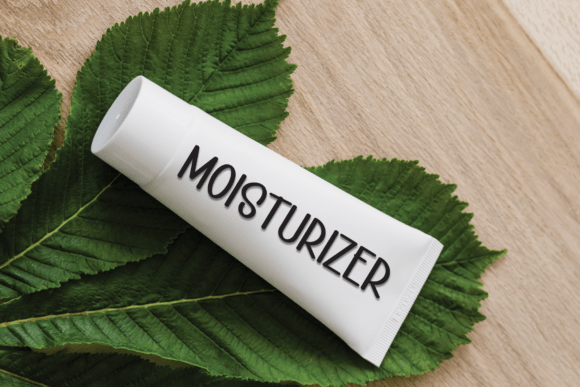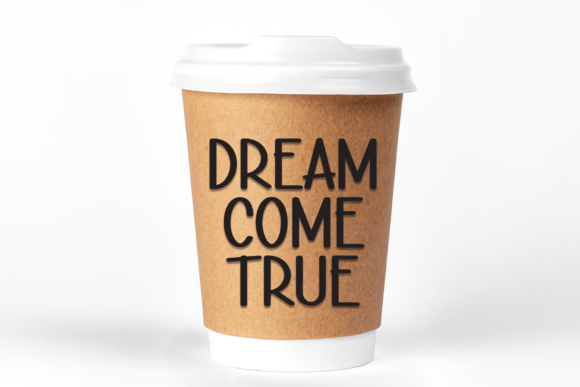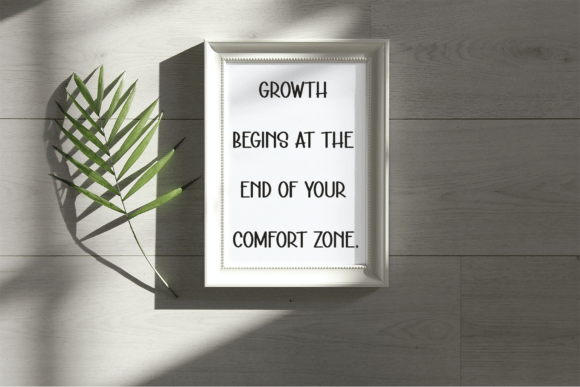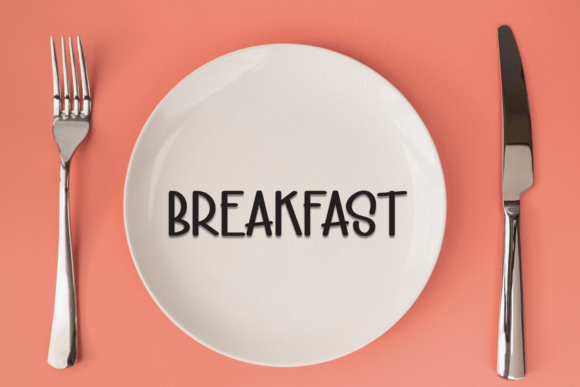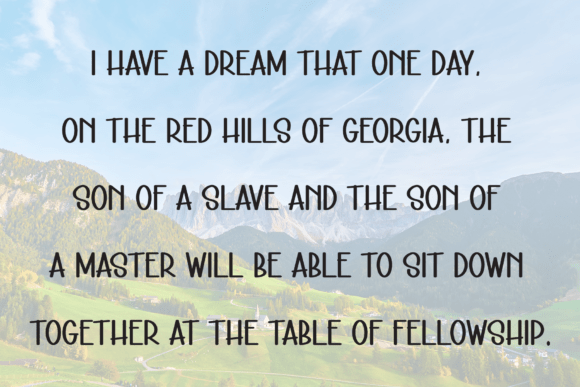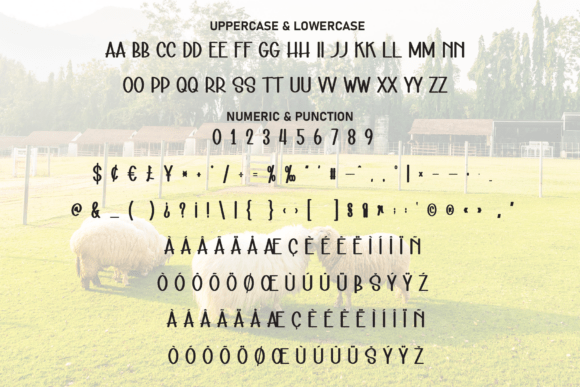
Introduction to Sheep Farming Font Font
Fonts play a crucial role in design, and the Sheep Farming Font font is a typeface that brings both character and versatility to any project. Whether you’re working on a branding project, a website, or a print design, the Sheep Farming Font font offers a unique style that can elevate your work.
Sheep Farming is a casual and neat display font designed to bring warmth and clarity to your projects.
With its clean structure and approachable style, it suits branding, headlines, and everyday designs The balanced letterforms offer readability and charm, making every message feel genuine and inviting.
Key Features of Sheep Farming Font Font
Why Choose Sheep Farming Font Font?
The Sheep Farming Font font is more than just a typeface – it’s a design tool that helps you communicate your message with style and clarity. Its unique character set and versatile design make it suitable for a wide range of applications, from elegant invitations to bold headlines.
With its carefully crafted letterforms and balanced proportions, the Sheep Farming Font font ensures readability and visual appeal across all mediums.
What makes Sheep Farming Font font special?
The Sheep Farming Font font stands out with its unique design, exceptional readability, and versatility across various design applications.